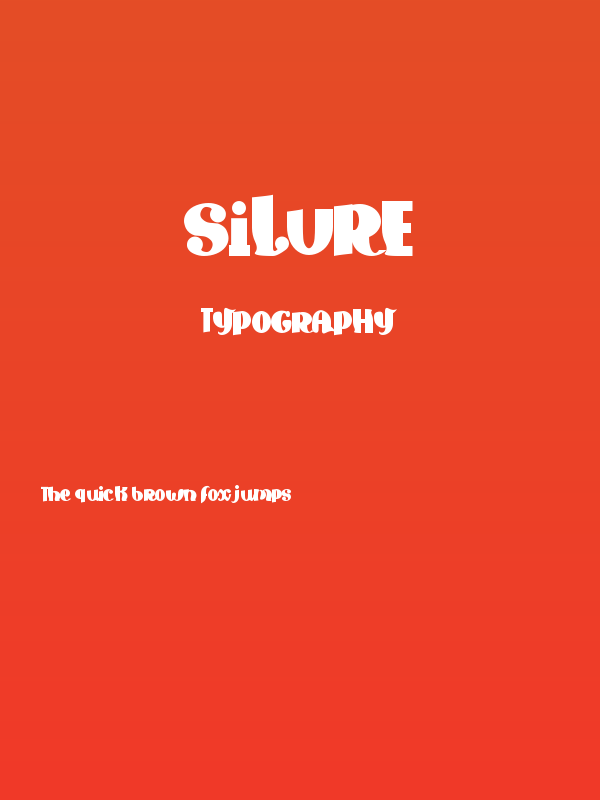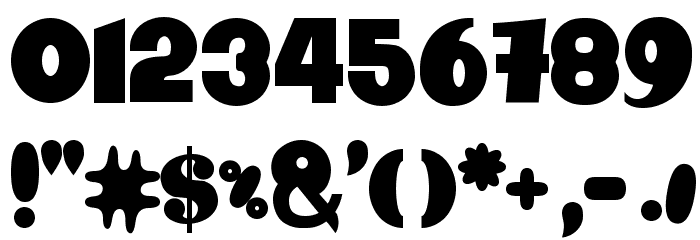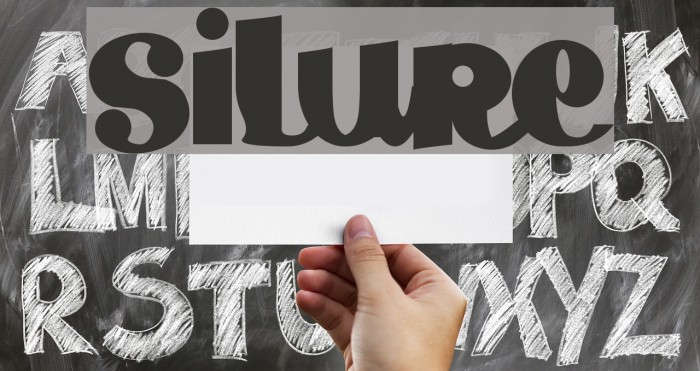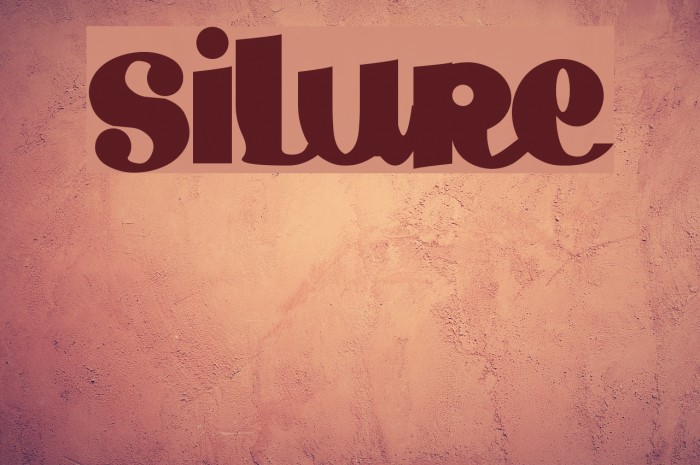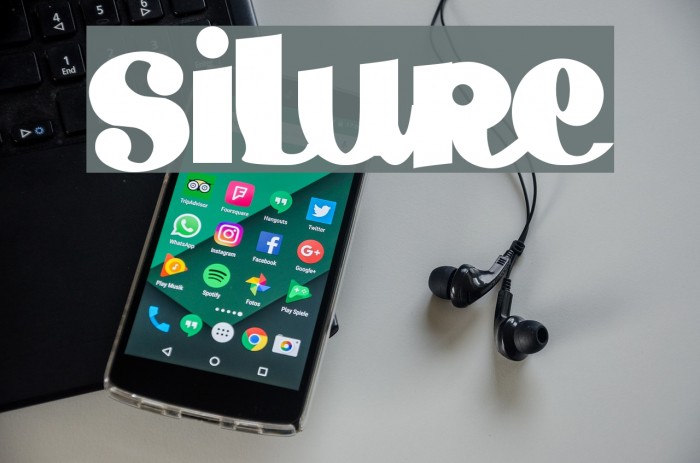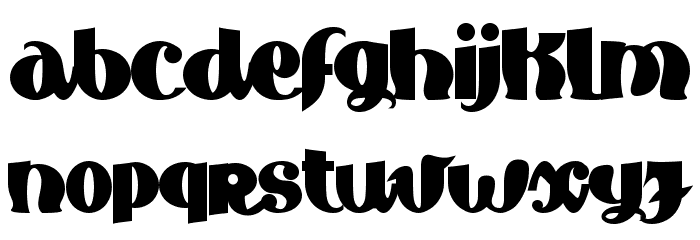
Silure Font
Silure Description
This font features a bold and playful design with a strong decorative flair. The characters are characterized by thick, rounded strokes and unique, whimsical shapes that give it a lively and dynamic appearance. The uppercase letters have a distinct presence with exaggerated curves and angles, while the lowercase letters maintain a consistent style with a slightly more compact form. The numbers are bold and easily readable, matching the overall aesthetic of the font. Special characters are creatively designed, adding to the font's playful nature. This font is ideal for projects that require a fun and eye-catching typeface.
| Overall Style | Playful, Decorative |
| Proposed Projects | Ideal for children's books, playful branding, party invitations, and eye-catching posters. |